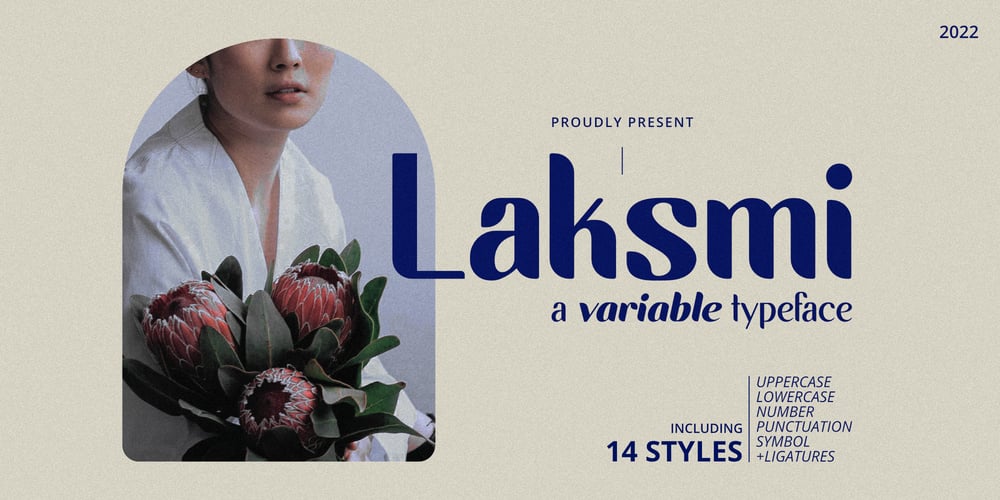
Laksmi Font Family was designed by Hazim Mujahid and published by Dotzeem. Laksmi contains 14 styles and family package options. Introducing, Laksmi is a clean Variable Sans Serif Typeface for your Design that is fit for your next creative project such as logos, product packaging, Logotype, Letterhead, Poster, Apparel Design, Label, and etc.This Laksmi Typeface includes also support a Multilingual Characters.